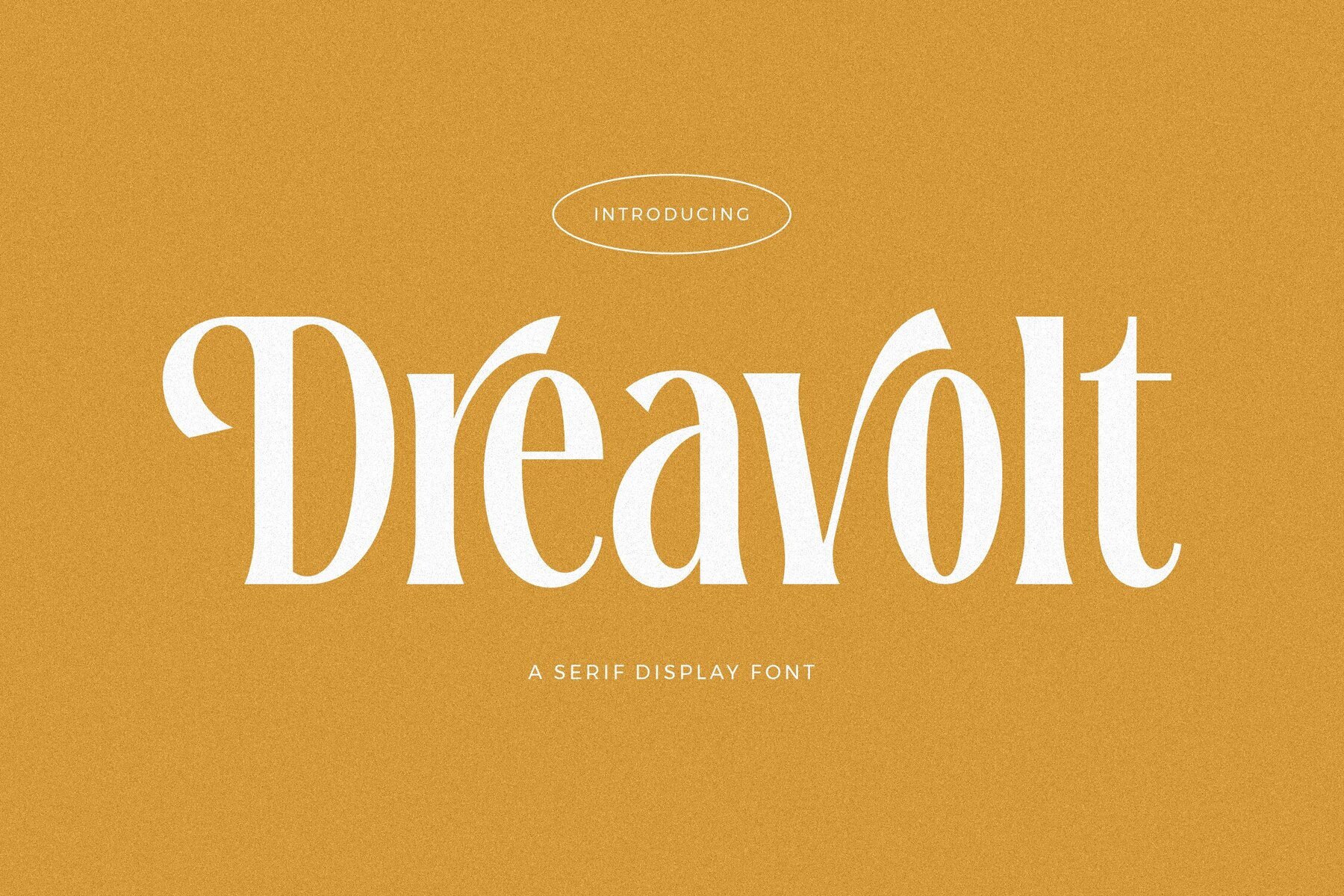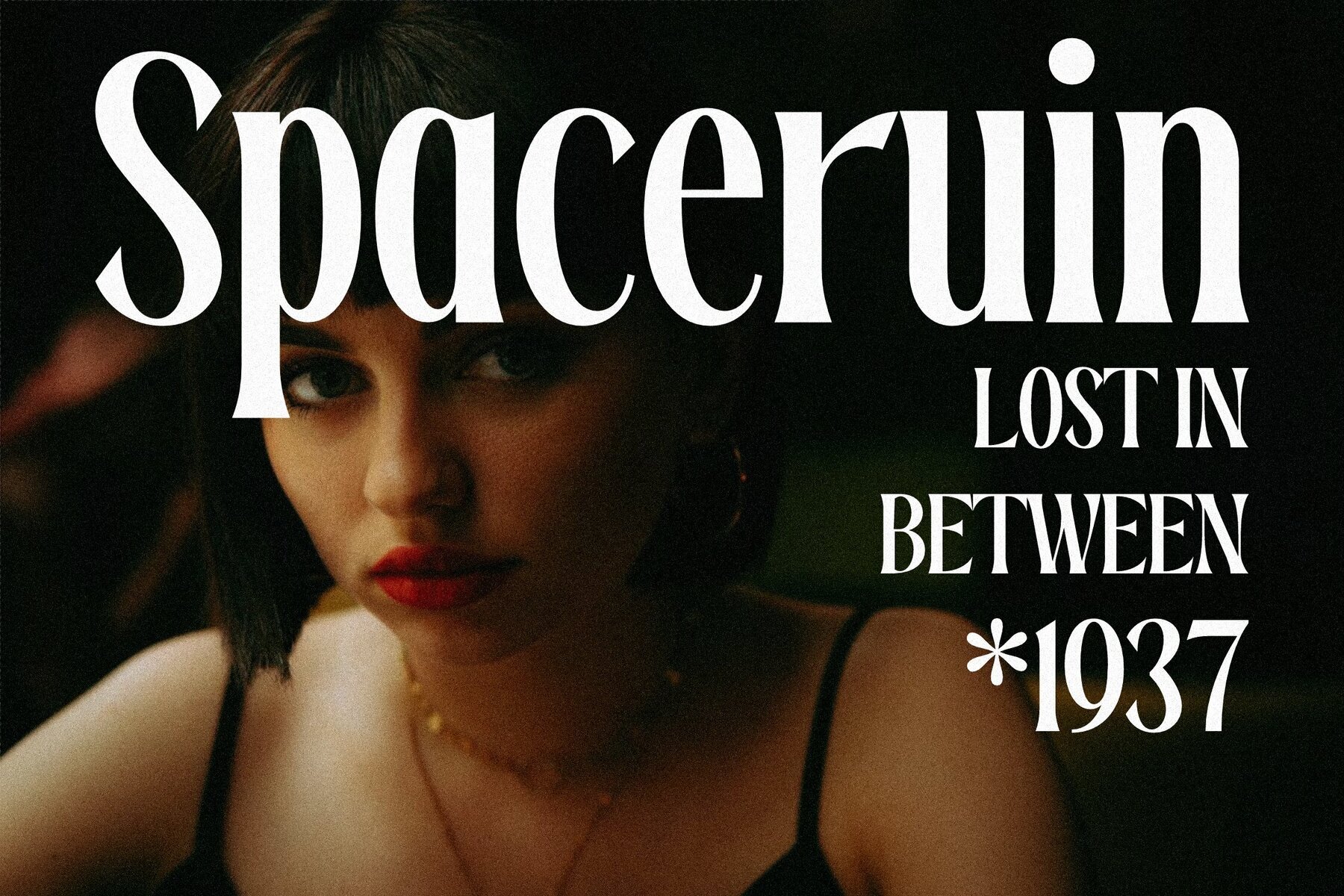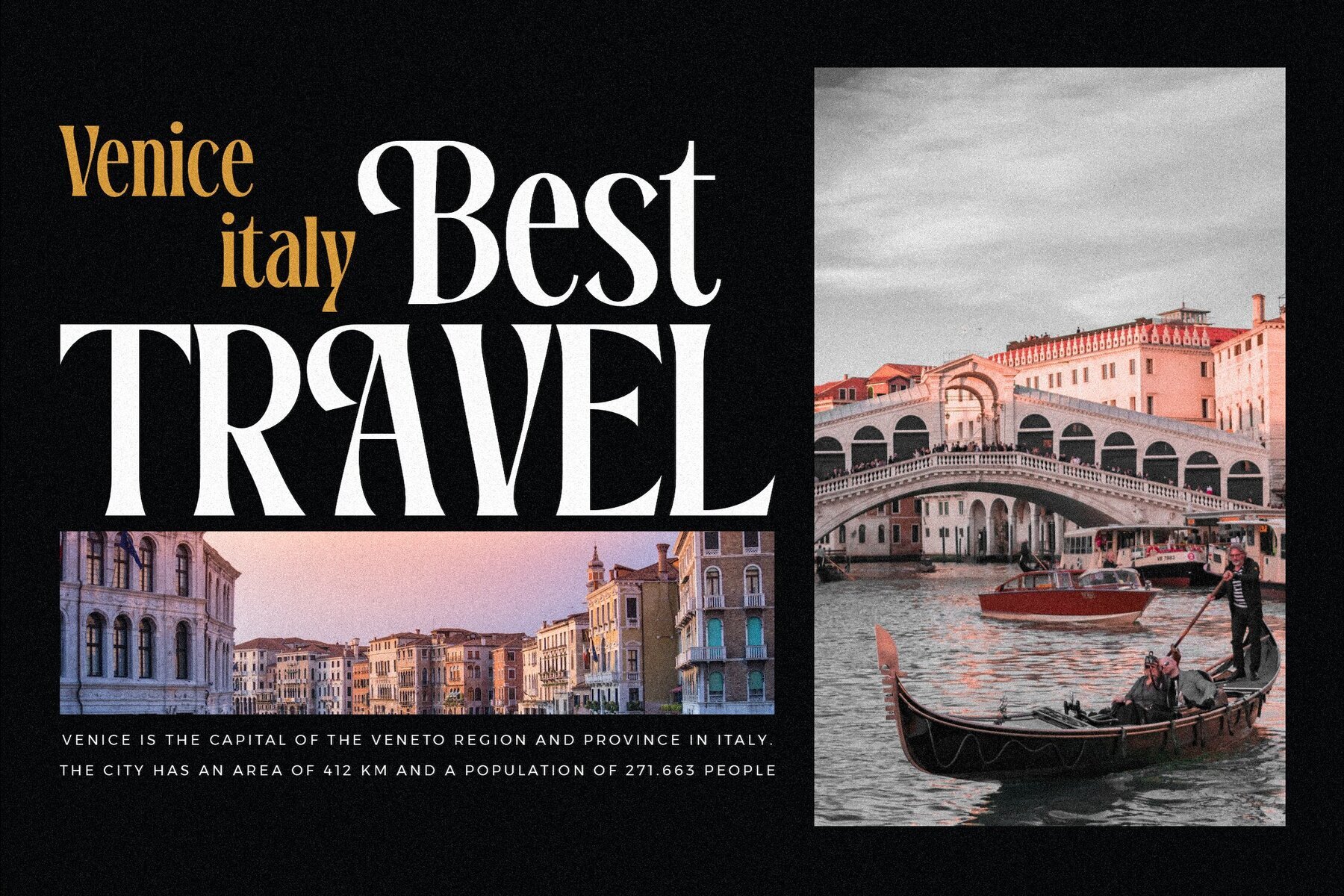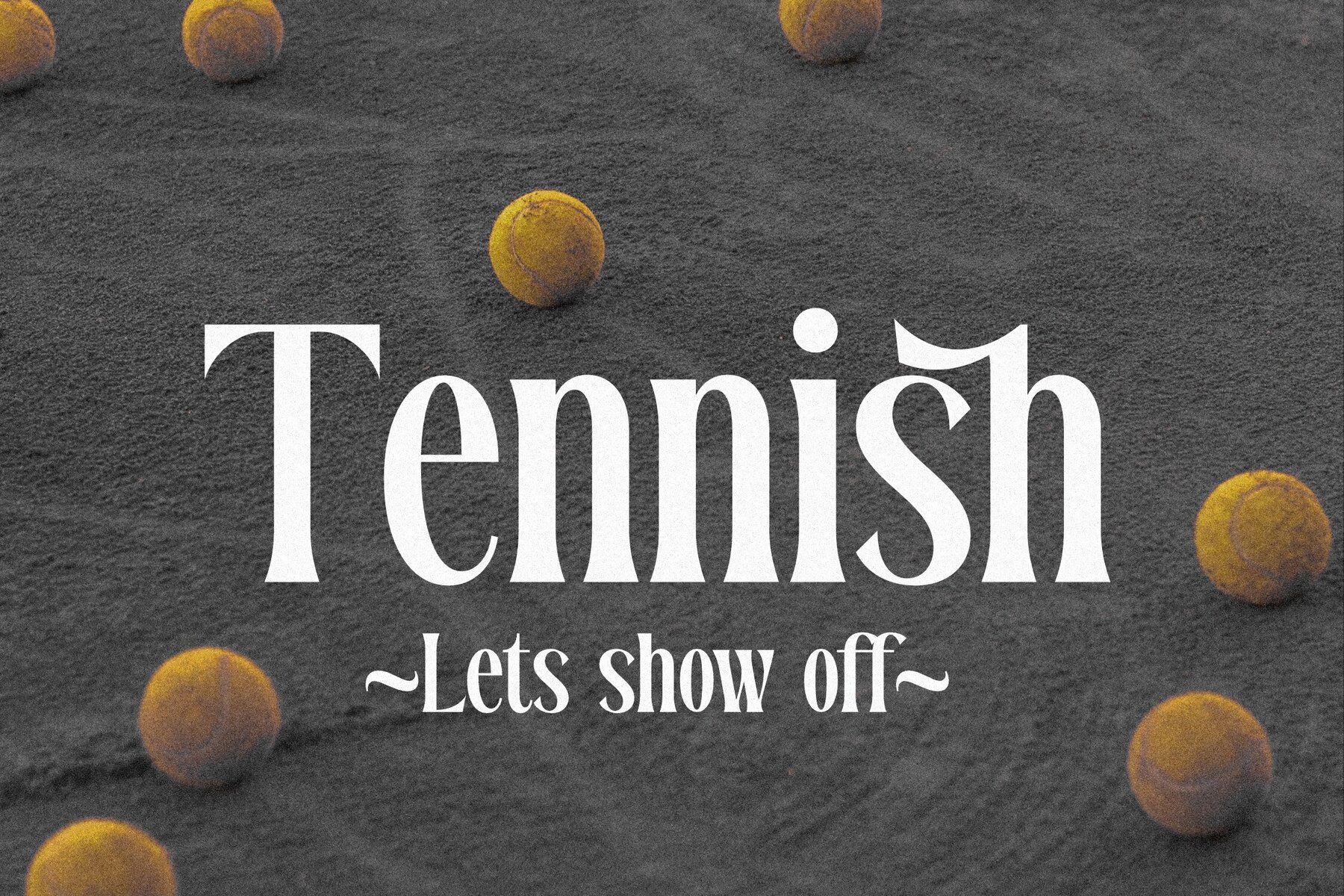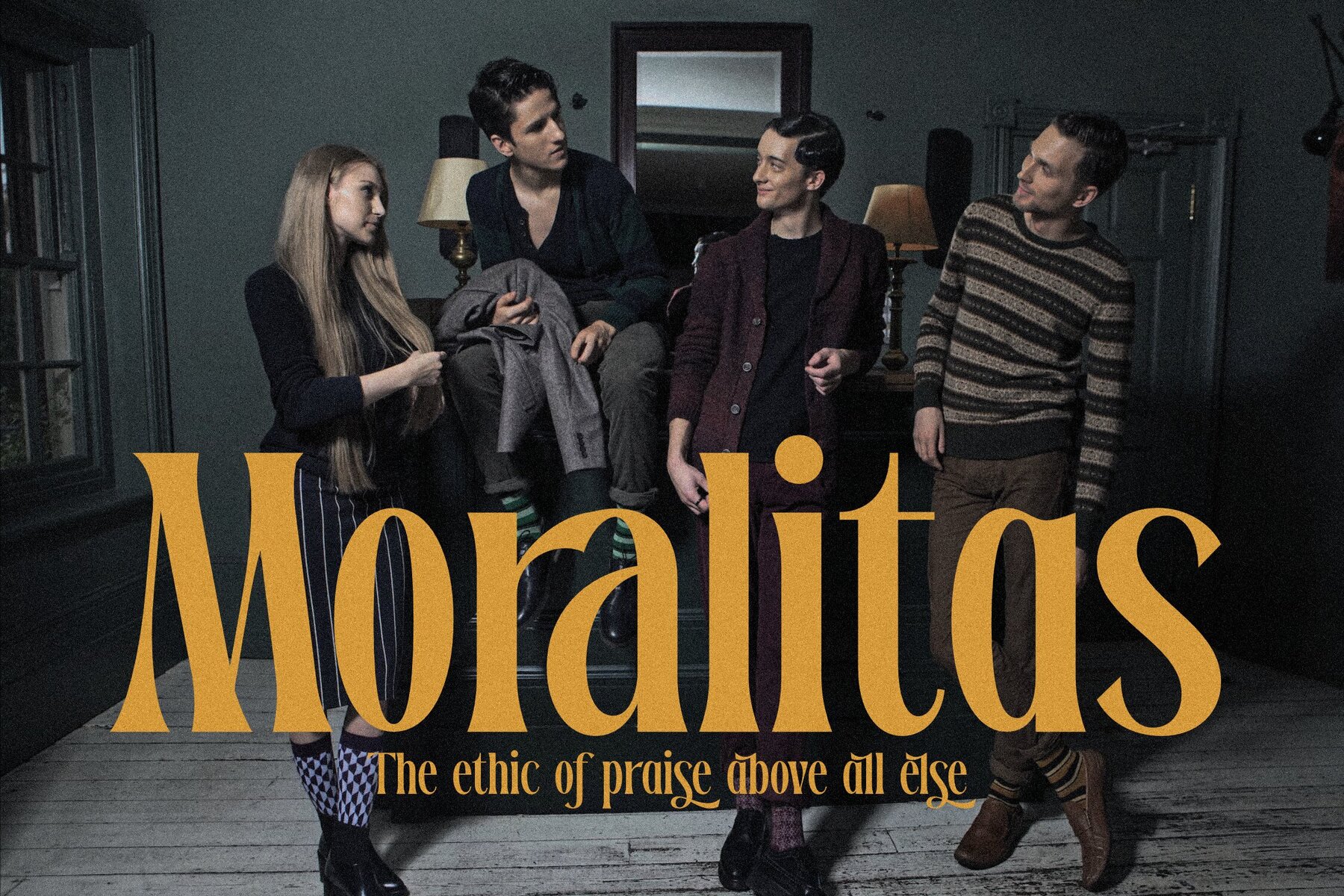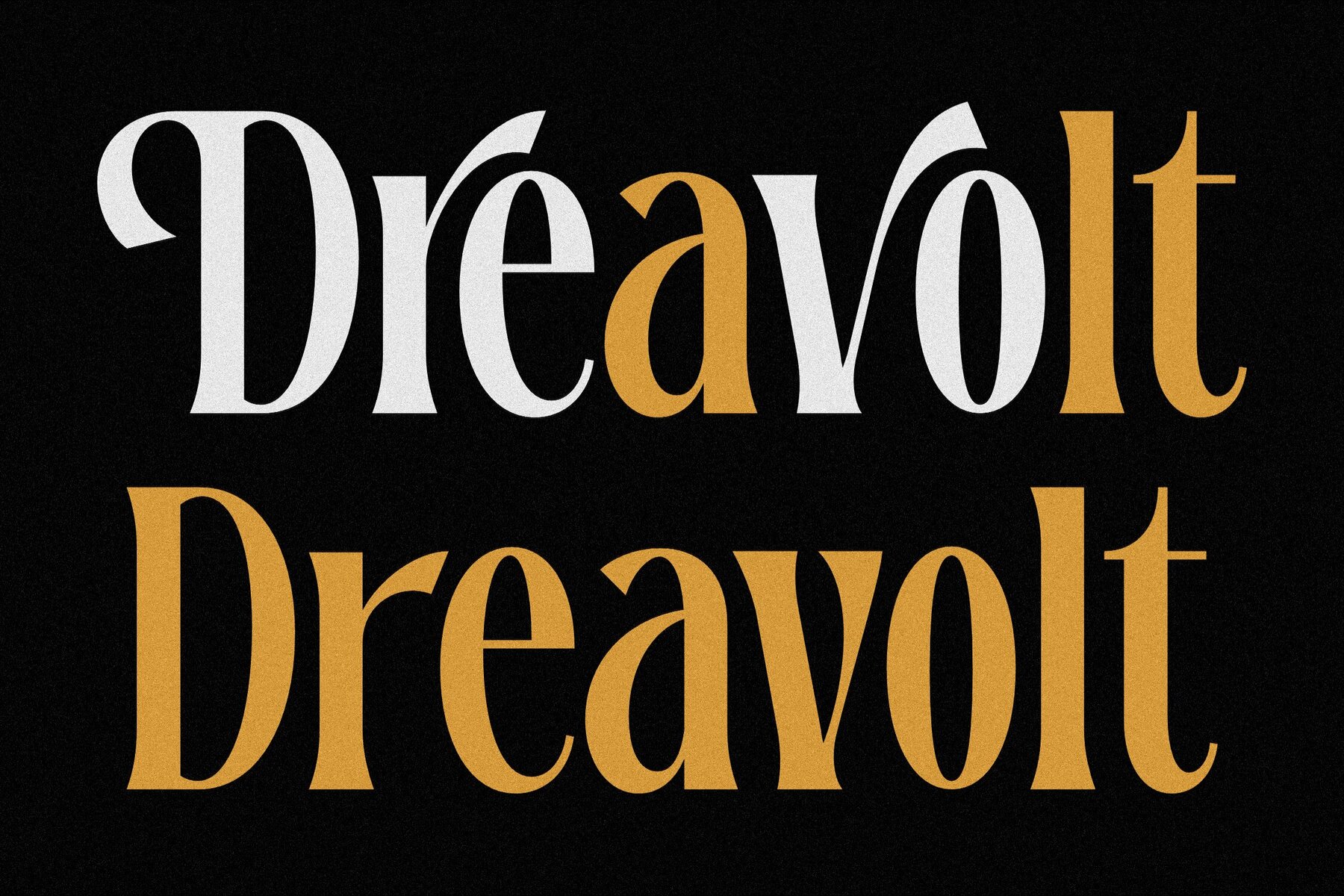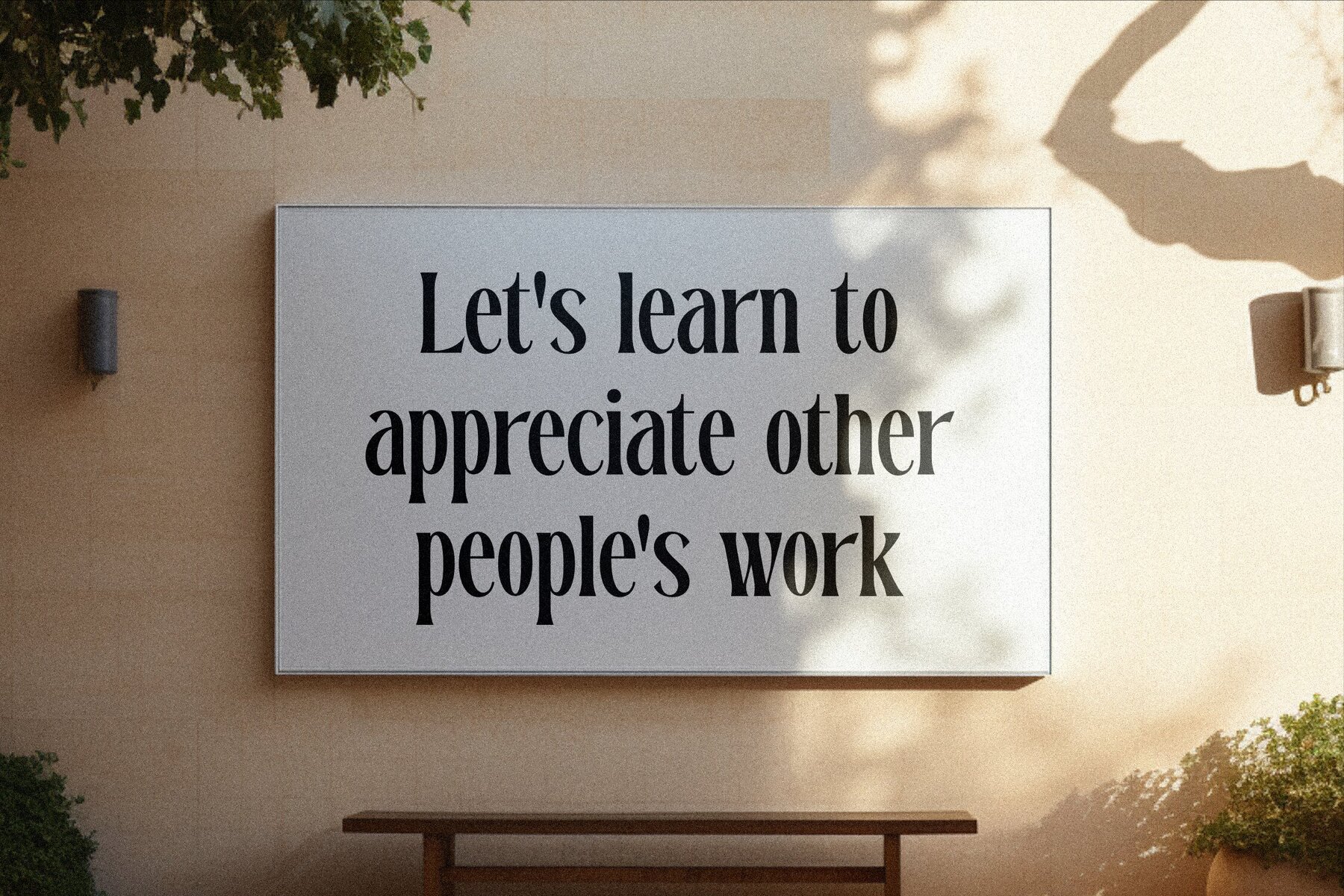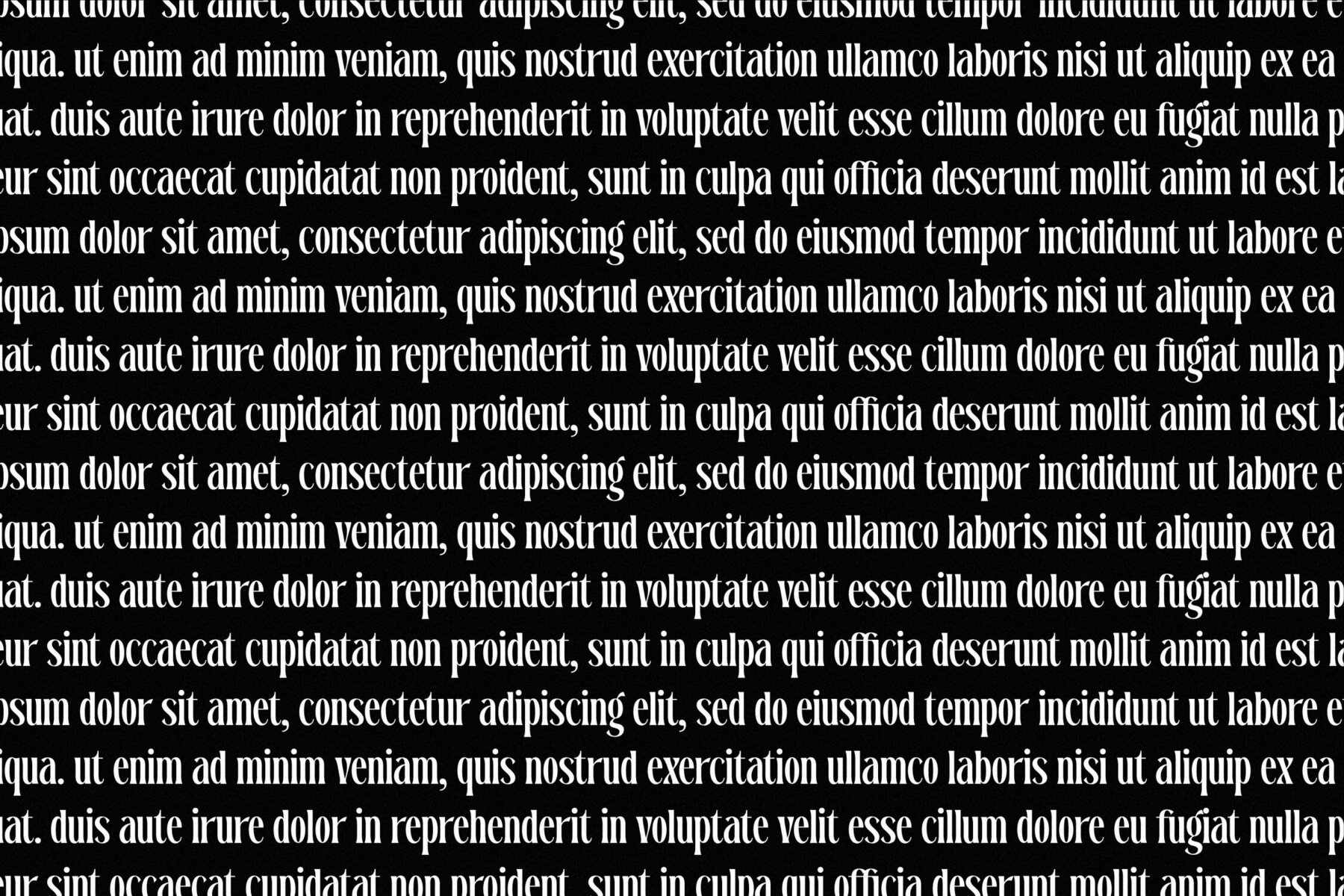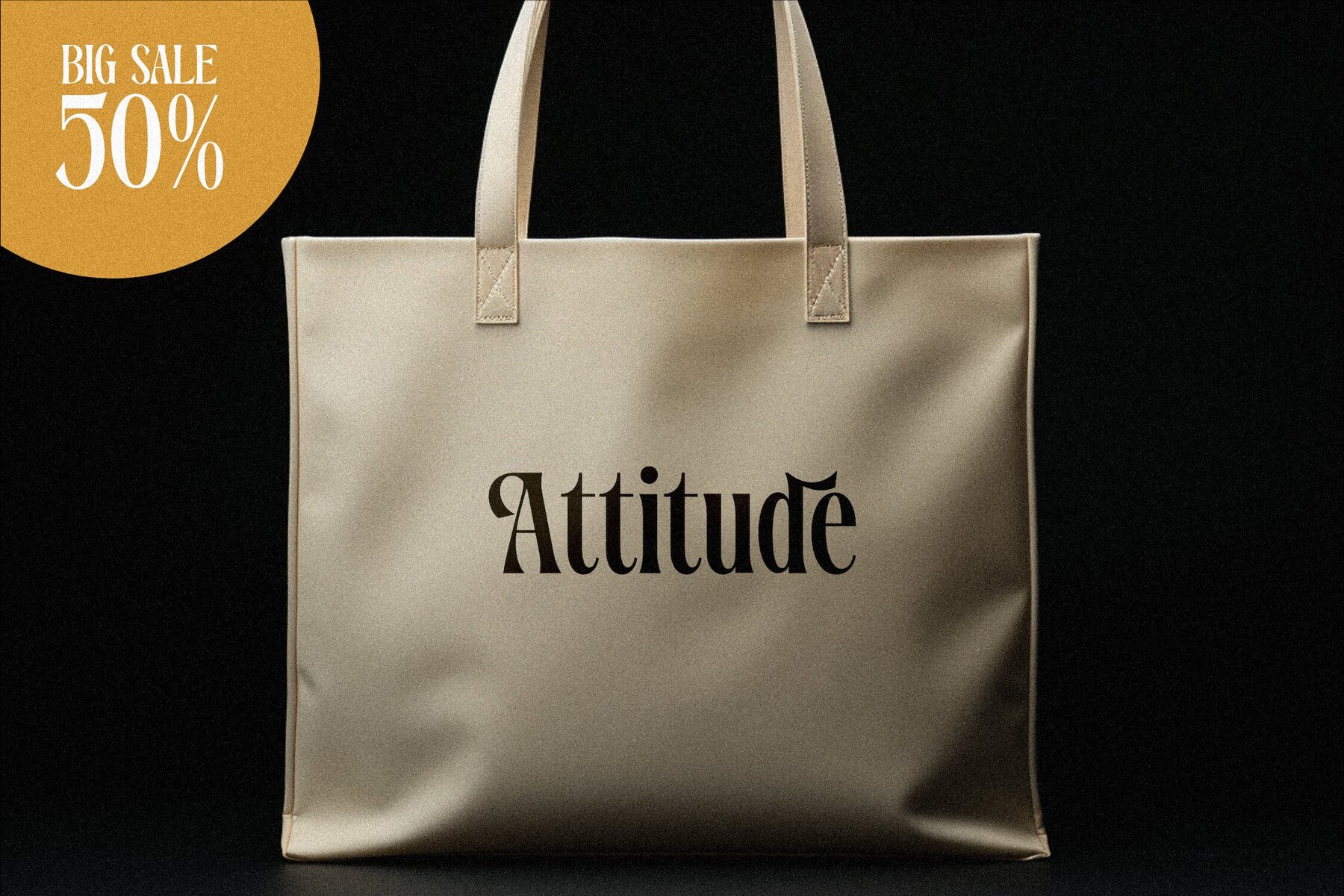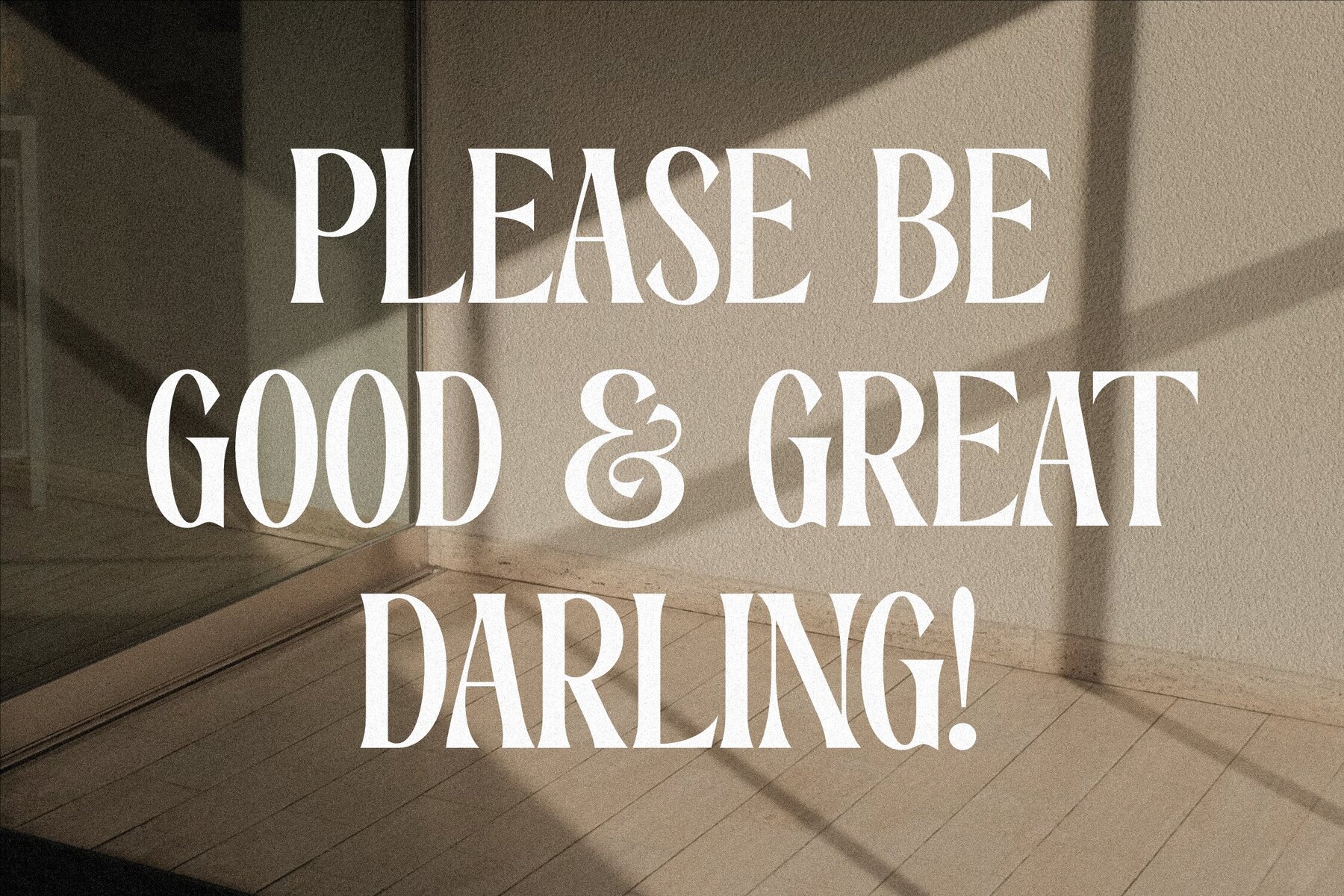
Dreavolt Font
Dreavolt Regular
Dreavolt Italic
Introducing the Dreavolt Typeface, a modern serif font crafted by Storytype Studio. With its distinctive style and contemporary flair, Dreavolt is your go-to choice for creating sophisticated and luxurious designs. Ideal for elegant logos, striking book or movie titles, high-fashion brands, stylish magazines, trendy clothing lines, and inspirational quotes—its versatility will amaze you. Elevate your design projects with Dreavolt, blending a timeless classic look with modern aesthetics effortlessly.Dreavolt Typeface